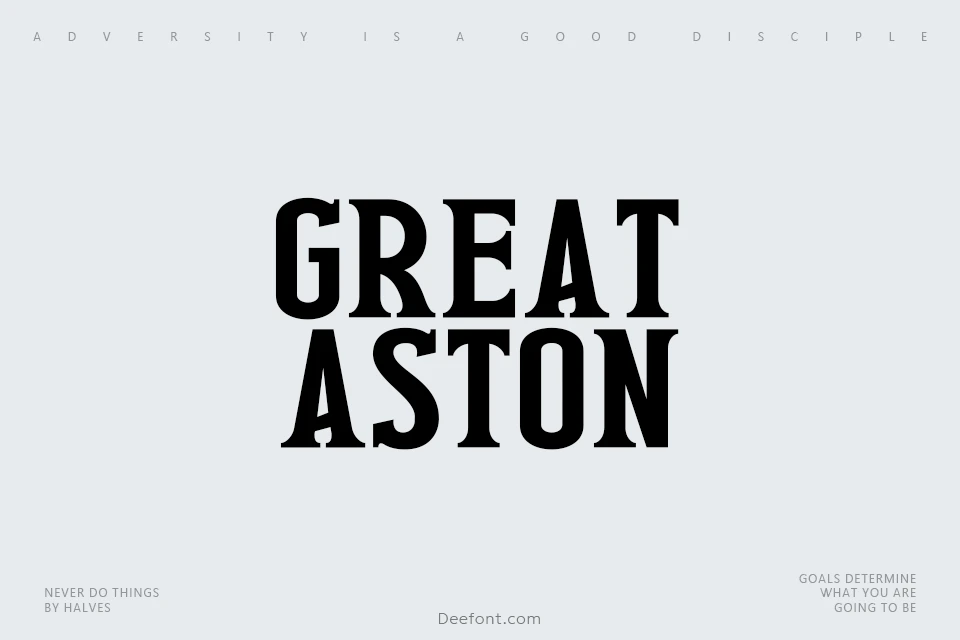
Great Aston Font
Great Aston Font is an elegant and bold serif typeface designed to bring a modern vintage touch to your creative projects. With its striking letterforms and smooth curves, this font is perfect for logos, packaging, advertisements, magazines, and branding, effortlessly combining sophistication with a classic aesthetic.